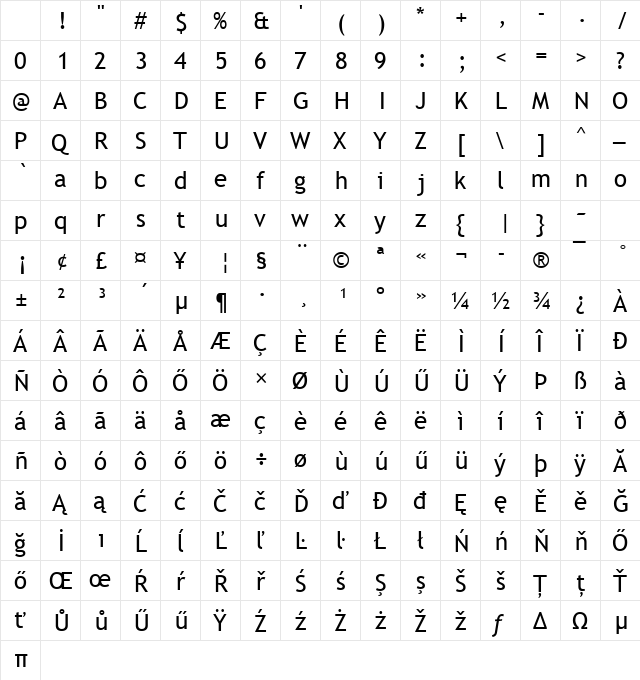
Complete Trebuchet MS Hu Normal glyph index. Displaying only characters natively supported by Trebuchet MS Hu Normal font.
Trebuchet MS Hu is a composed and adaptable typeface that performs quietly and consistently across a wide range of design contexts.